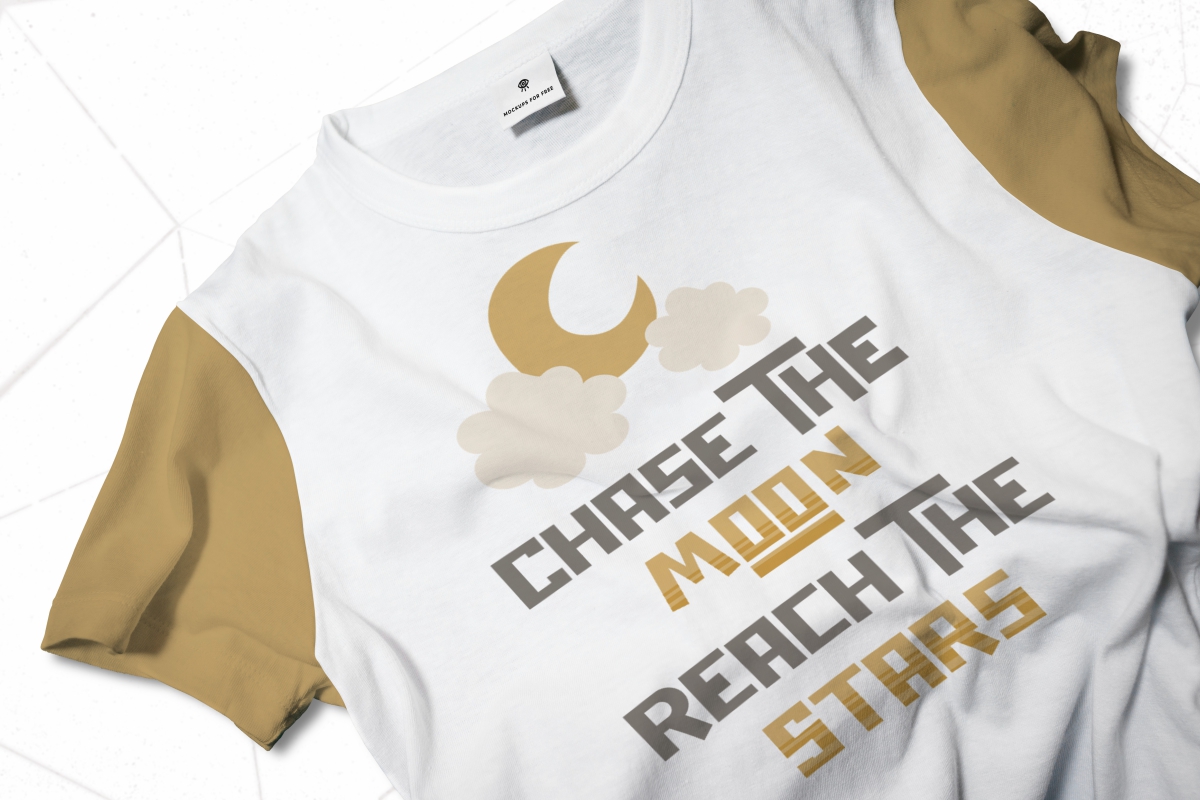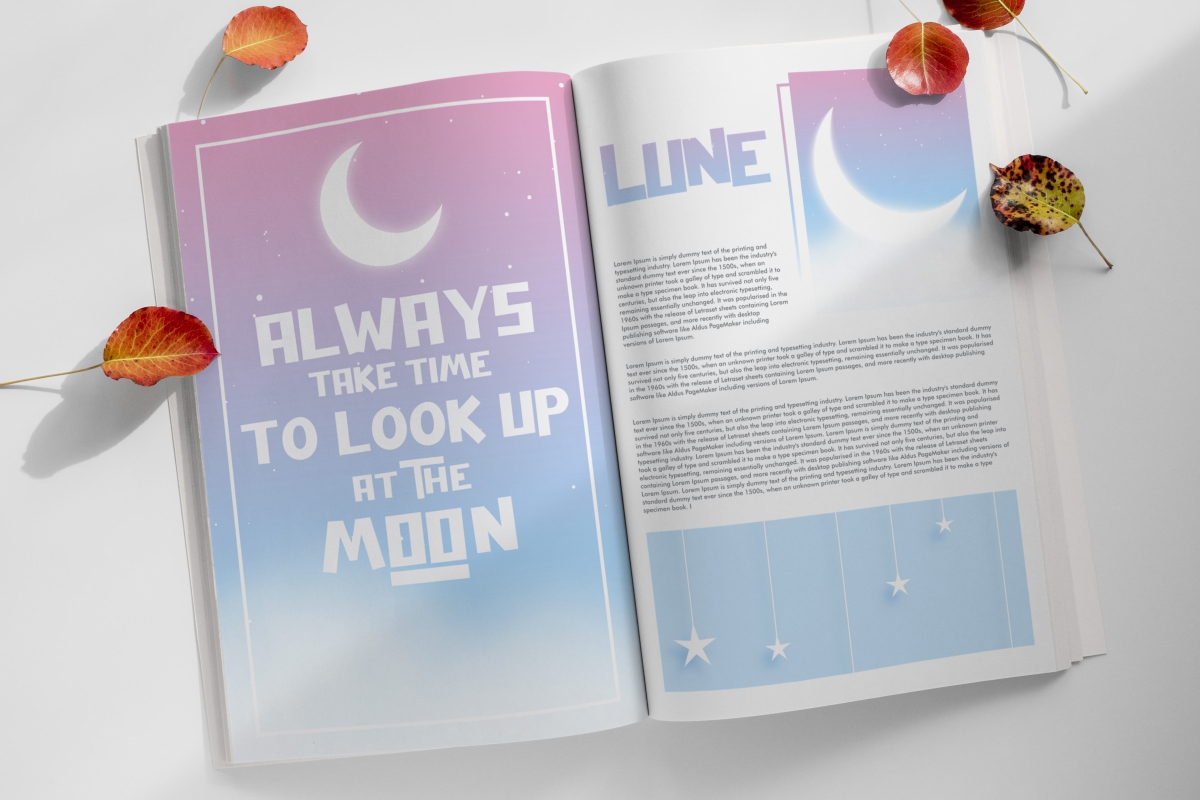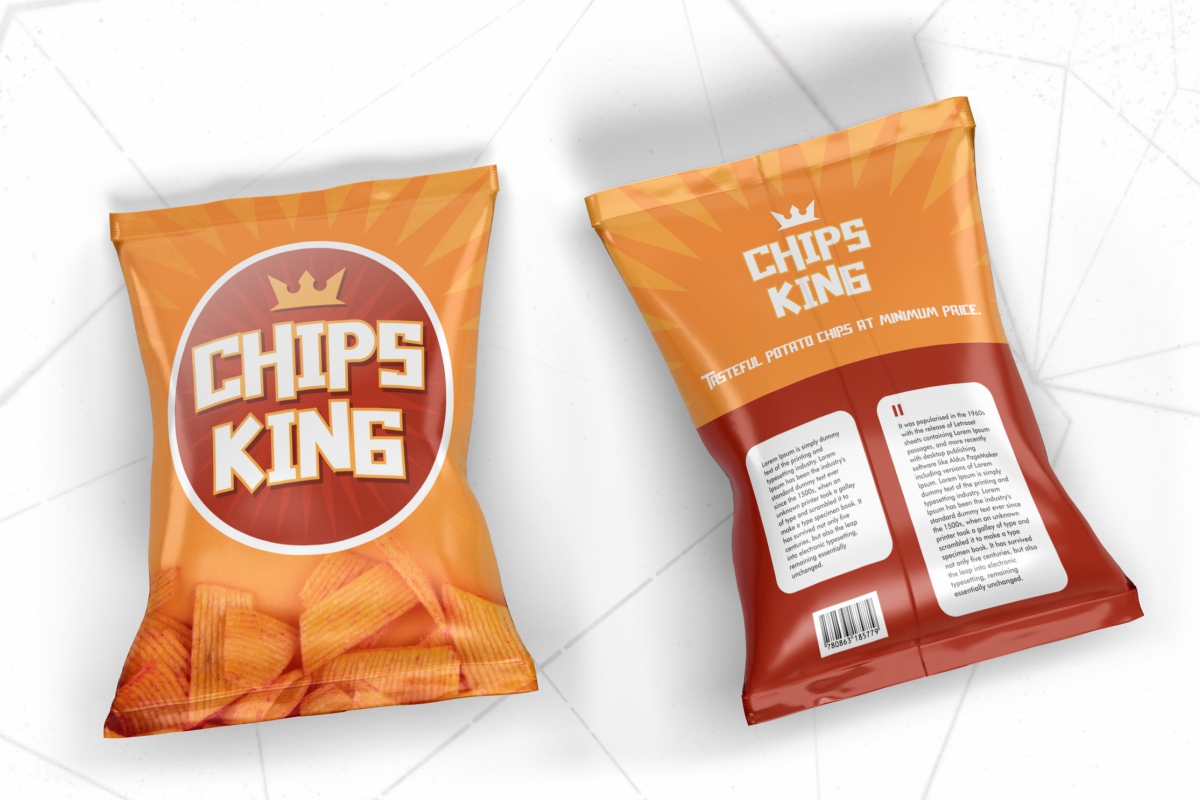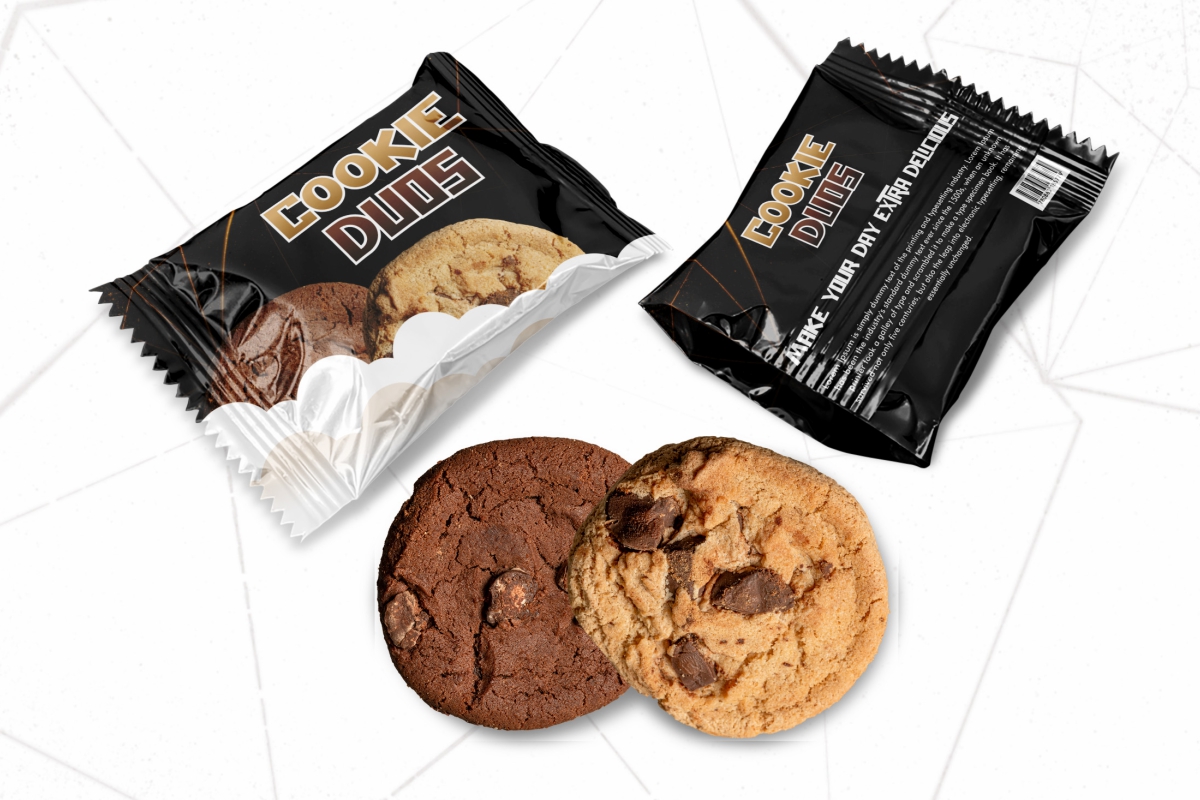
Ultramoon Font
Ultramoon Display Font
It’s a cartoon display font with unique and awesome letter shapes. The style of this font are cartoon/comic, fantasy, simple, space and stylish. Great for logo brandings, headline, lettering, products packaging, signage etc. Ultramoon Font is a sans serif font with shapes inspired by outer space. The font will be awesome for many industries including : clothing, food and drink, kids, school, writers and many more!